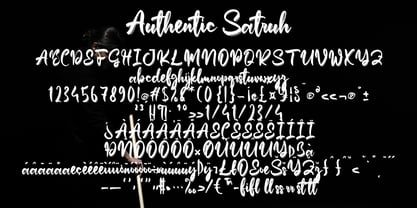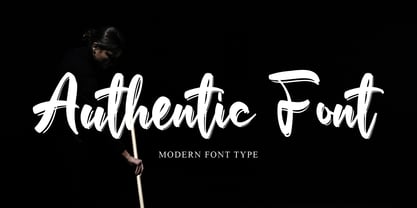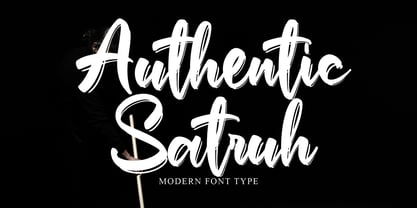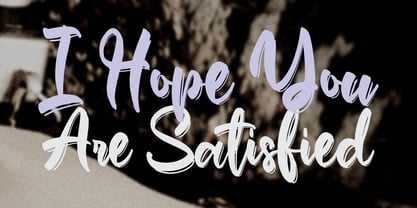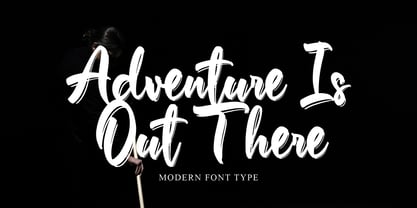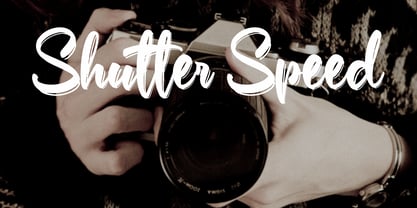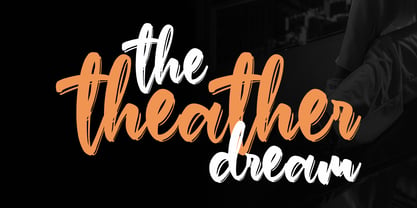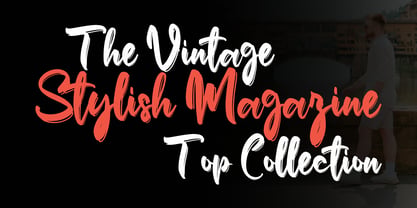
Authentic Satruh
Authentic Satruh is an expressive handwritten font. With modern pen strokes, fun characters with little ligatures, alternate lowercase, and swashes. To give you more creative work. Authentic Satruh font supports multilingual. This font is good for logo design, social media, movie titles, book titles, short texts even long letter texts and good for your secondary text font with sans or serif. Create stunning work with Authentic Satruh font.